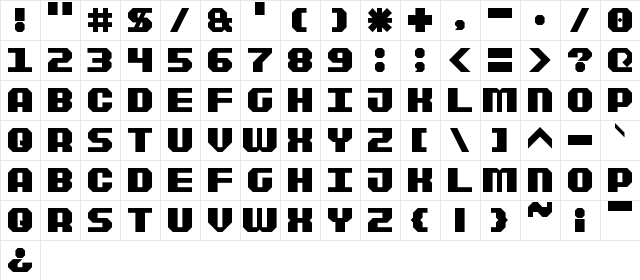
Sportsball Regular
Design Context for Sportsball Typeface
Sportsball brings high-energy athletic personality to the page — its confident, muscular forms are built for impact.
Built for sports team identities, athletic apparel, event posters, and high-energy promotional material.
Font Pairing: Use alongside a condensed or geometric sans for supporting copy — keep the pairing bold, functional, and free of ornament.
Pro Tip: Sportsball thrives on contrast — try it large, bold, and tight against a clean background for maximum visual impact.